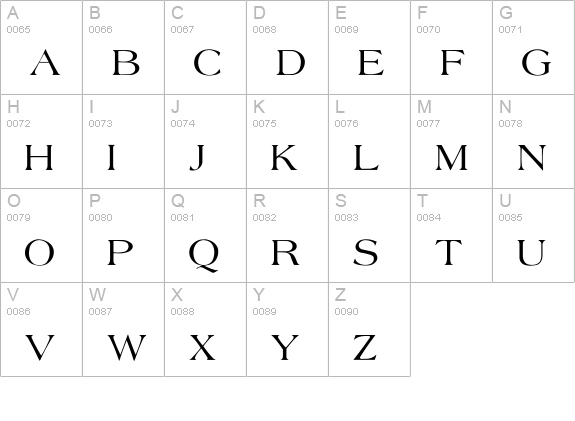
Agate font is a stunning typeface that exudes elegance and versatility. With its sleek and modern design, Agate font is perfect for a wide range of design projects, from branding to editorial designs. Its clean lines and balanced proportions make it a timeless choice for any project. This exquisite font is available for free download at FontsMarket.com, making it easily accessible to designers and creatives looking to add a touch of sophistication to their work. Whether you're creating a logo, poster, or website, Agate font is sure to make a statement with its refined aesthetic and polished appearance. Elevate your designs with the timeless charm of Agate font, now available for free at FontsMarket.com.